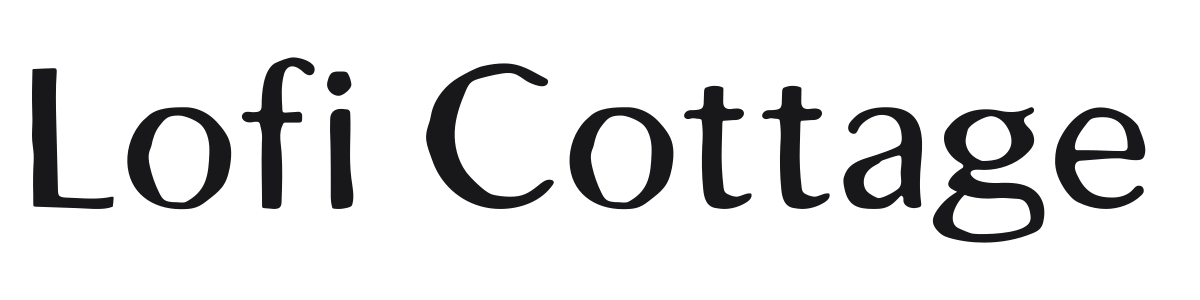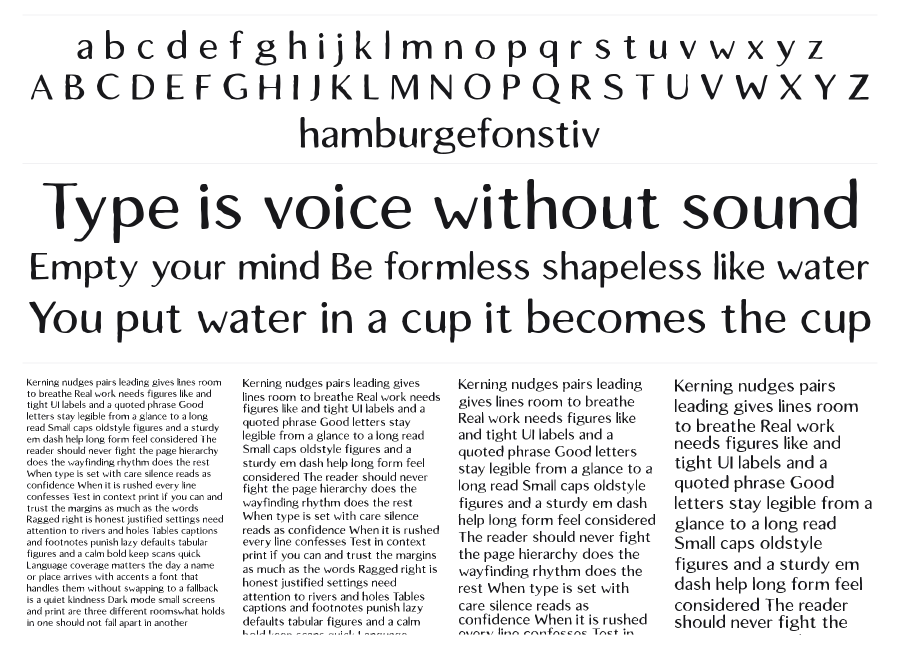
Lofi Cottage
Lofi Cottage is a humanist sans-serif with a hand-drawn warmth baked into its construction, designed by Craft Supply Co. Subtle irregularities in stroke weight and terminal shapes give it a handcrafted, artisanal feel without leaning into full brush-script territory. It suits branding and packaging projects where warmth and authenticity matter.